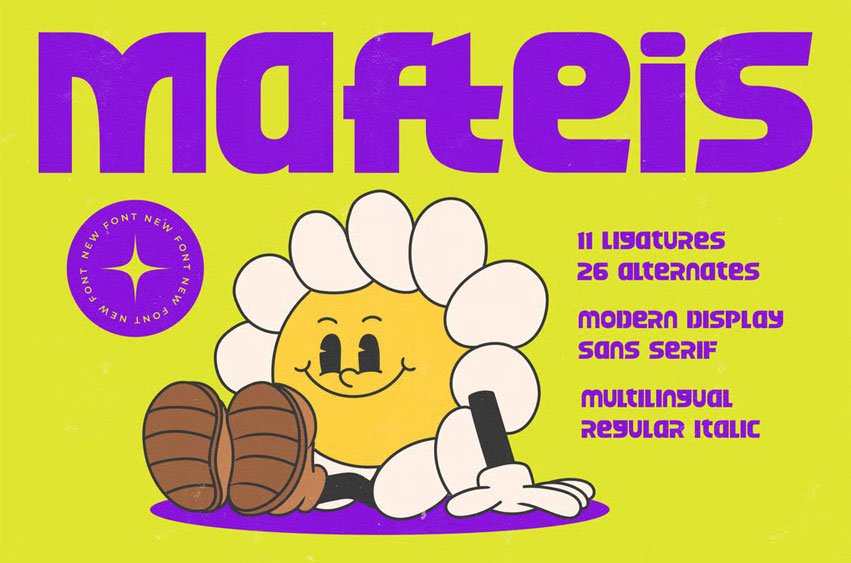
Mafteis Font is a bold modern display sans serif with a playful retro spirit, crafted with thick geometric shapes, quirky letter angles, and expressive personality that instantly brings a fun, youthful energy to branding, posters, merchandise, social media graphics, cartoon themes, and creative projects that need a strong yet approachable visual identity.
Equipped with 11 ligatures, 26 alternates, multilingual support, and both regular and italic styles, Mafeis delivers flexibility and character in one compact, eye-catching package.